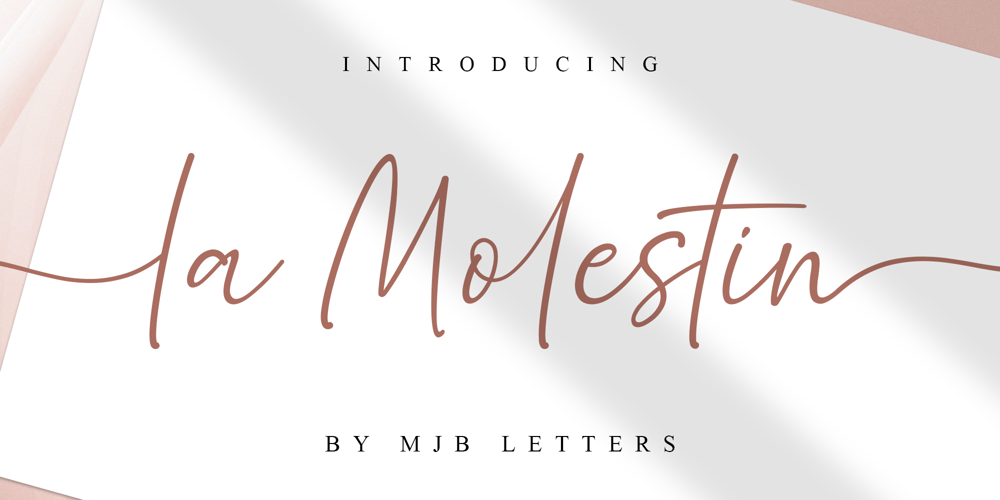
La Molestin Font Family was designed by Muhammad Mujibulloh and published by MJB Letters. La Molestin contains 1 styles and family package options. “La Molestin” is a beautiful handwritten font that combines casual style with elegant charm. Featuring unique swash details at the beginning and end of each letter, this font adds a touch of personality to any design. It also includes ligature substitution, allowing for smoother connections between letters, and PUA encoding for easy access to alternate characters. With multilingual support, you can use “La Modesta” in a variety of languages.